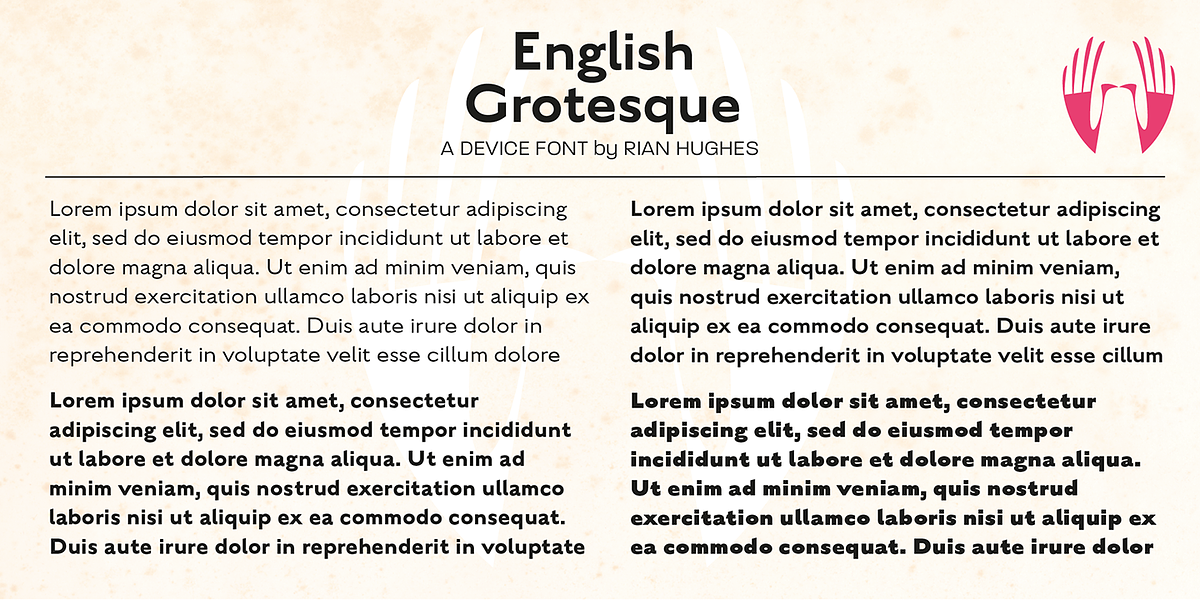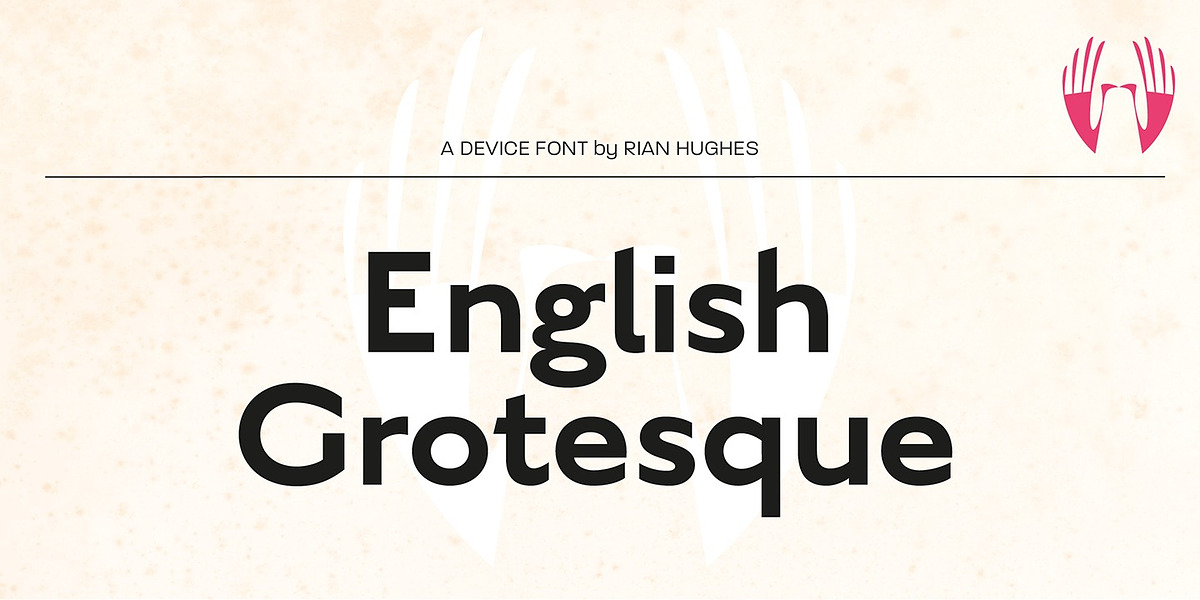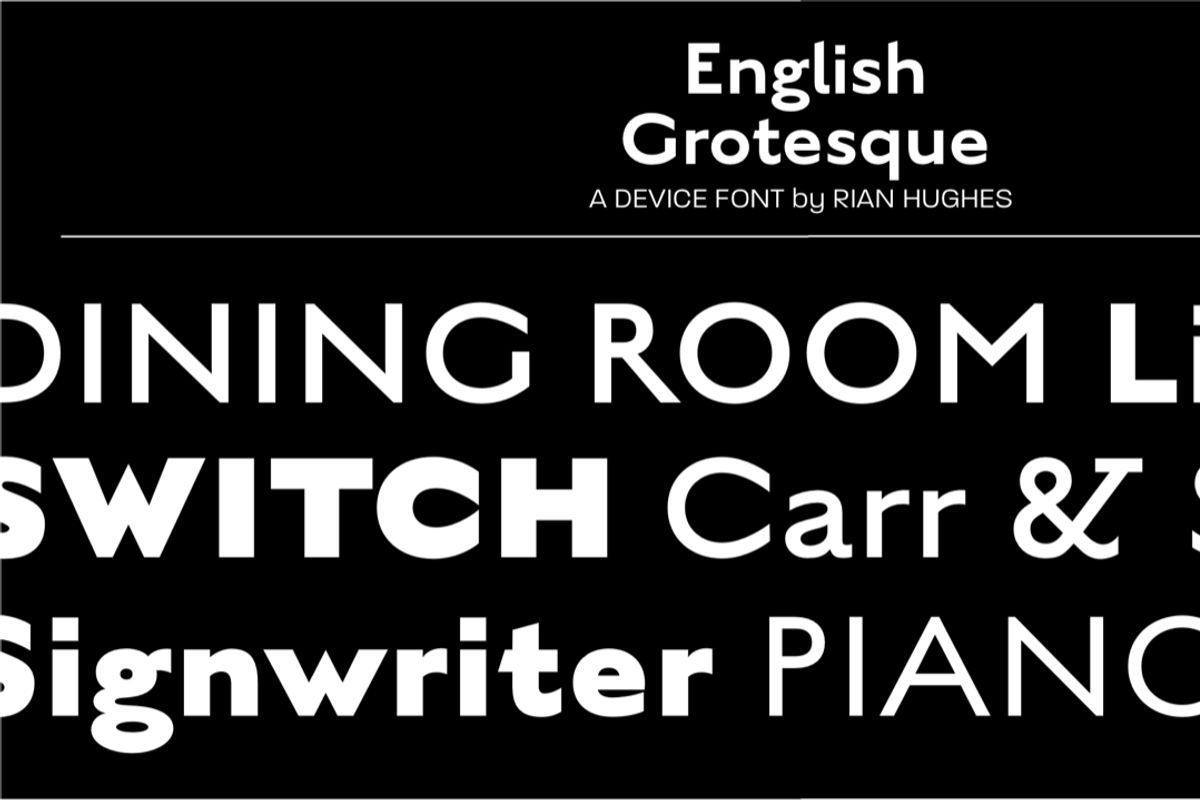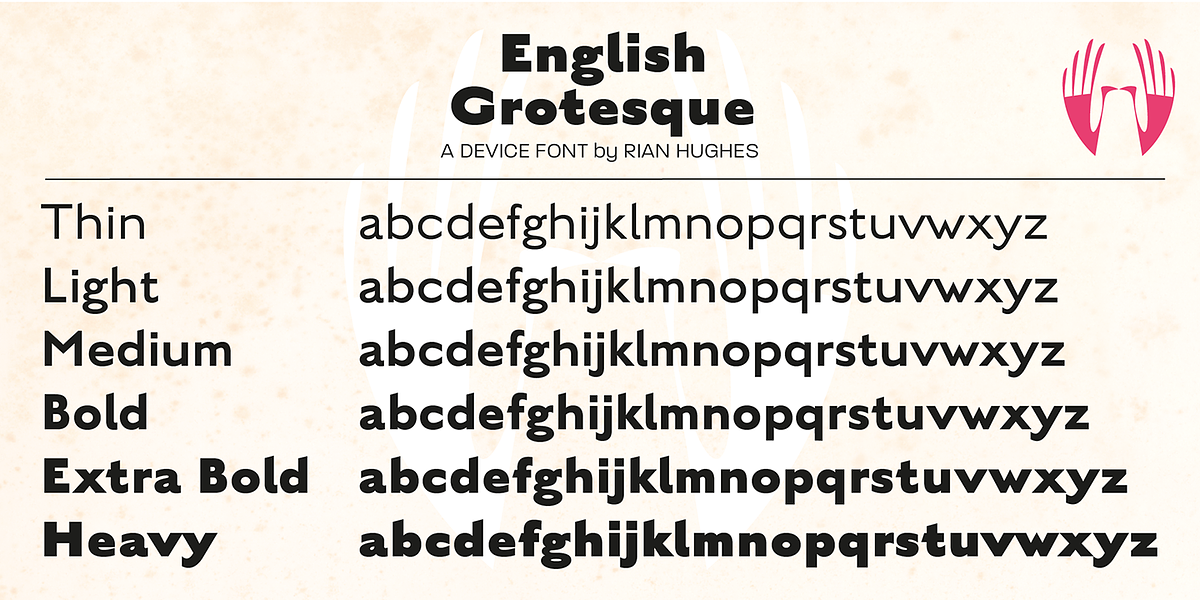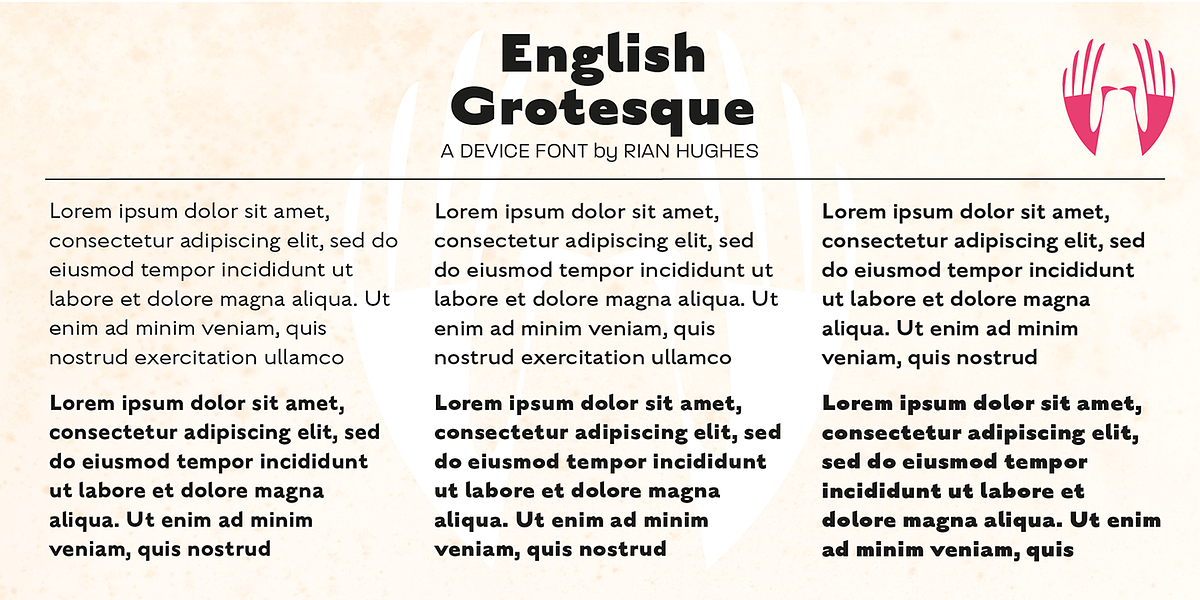
English Grotesque
English Grotesque is a sans-serif typeface inspired by the proportions found in early 20th-century signage. It shares structural similarities with classic grotesques like Gill Sans and Johnston Railway Type, featuring distinct characteristics such as a wide T and W, a narrow S, and a long-tailed R. The lowercase letters maintain the characterful proportions of the capitals, reflecting the influence of handwritten models common in early sans-serif designs. The font is available in six weights, offering versatility for various design applications.